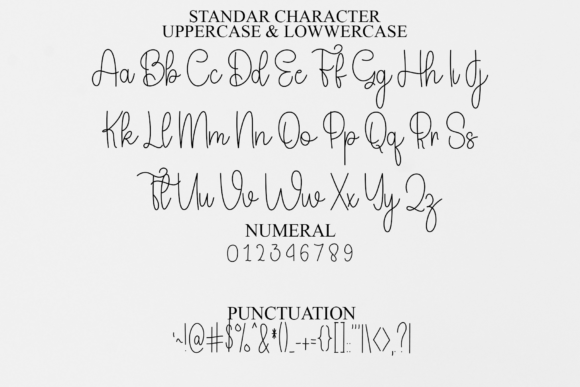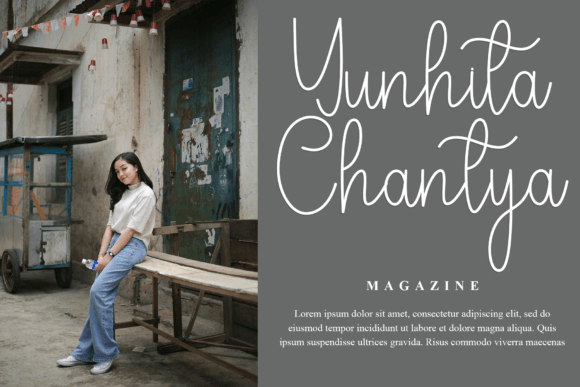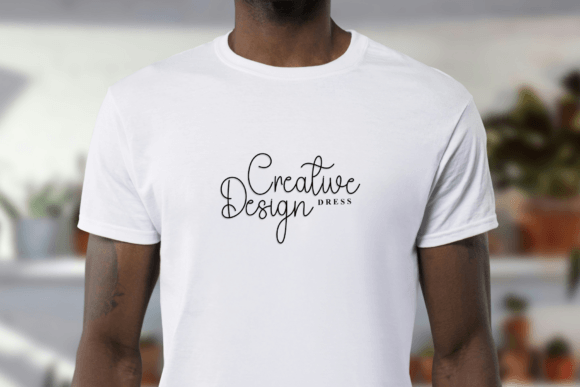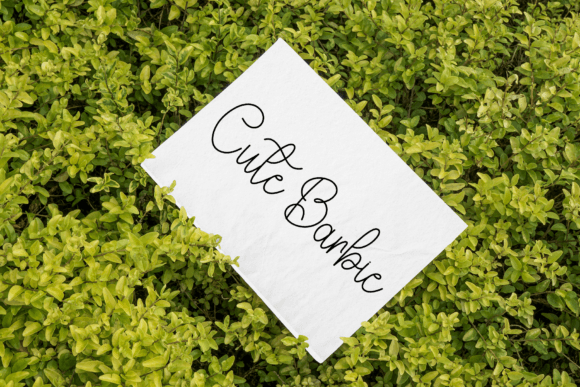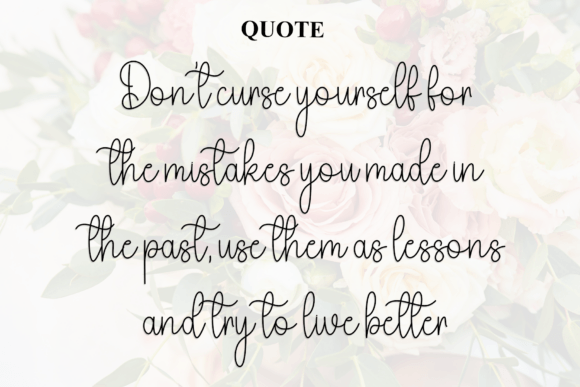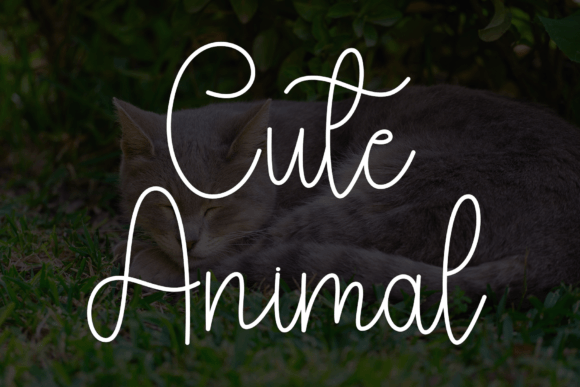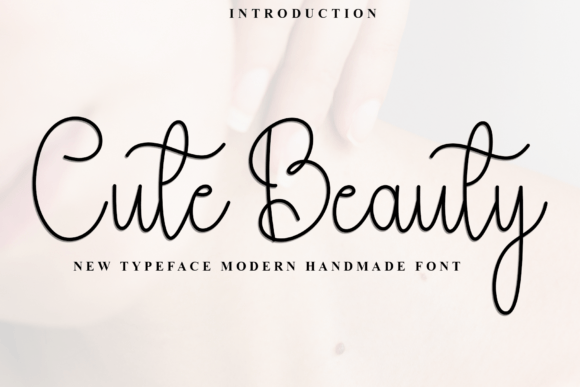
Cute Beauty Font: Elevate Your Designs with a Soft and Unique Touch
In the world of design, typography plays a crucial role in capturing the essence of a brand or creative project. A well-chosen font can make all the difference, conveying the right tone and aesthetic to engage your audience. If you’re on the hunt for a beautiful and eye-catching font that adds a touch of softness and uniqueness to your designs, look no further than Cute Beauty Font.
What Makes Cute Beauty Font Special?
Cute Beauty Font is a meticulously designed font that boasts distinctive strokes, giving it a special character that sets it apart from other fonts. Its soft and unique touch makes it perfect for a wide range of design projects, from crafts and creative works to branding and advertising materials. The font’s versatility is further enhanced by its various characters, ensuring that your designs will stand out and leave a lasting impression on your audience.
Key Features of Cute Beauty Font
• Soft and Unique Touch: Cute Beauty Font is designed with a soft, unique touch that adds a touch of elegance and sophistication to your designs.
• Distinctive Strokes: The font’s distinctive strokes give it a special character, making it perfect for designs that require a personal touch.
• Versatile: With various characters, Cute Beauty Font is ideal for a wide range of design projects, from crafts and creative works to branding and advertising materials.
Cute Beauty Font is a dream come true for designers and crafters looking to add a personal touch to their work. Whether you’re creating branding materials, social media graphics, or craft projects, this font is sure to elevate your designs and make them more engaging. Its natural font style makes it perfect for designs that require a subtle yet impactful touch.
Applications of Cute Beauty Font
Cute Beauty Font is a versatile font that can be used in a wide range of applications, including:
• Branding: Use Cute Beauty Font to create stunning branding materials, such as logos, business cards, and letterheads.
• Social Media Graphics: Add a personal touch to your social media graphics, including Facebook posts, Instagram stories, and Twitter headers.
• Crafts: Use Cute Beauty Font to create beautiful craft projects, such as handmade cards, scrapbooking, and DIY decorations.
• Advertising: Incorporate Cute Beauty Font into your advertising materials, including flyers, brochures, and posters.
Why Choose Cute Beauty Font?
With so many fonts available, why choose Cute Beauty Font? Here are just a few reasons:
• Unique: Cute Beauty Font is a one-of-a-kind font that will set your designs apart from the rest.
• Elegant: The font’s soft and unique touch adds a touch of elegance and sophistication to your designs.
• Versatile: Cute Beauty Font can be used in a wide range of applications, making it a valuable addition to your design toolkit.
In conclusion, Cute Beauty Font is a beautiful and eye-catching font that is sure to elevate your designs and make them more engaging. Its soft and unique touch, distinctive strokes, and versatility make it perfect for designers and crafters looking to add a personal touch to their work. With its wide range of applications and compatibility with various platforms, Cute Beauty Font is an excellent choice for anyone looking to take their designs to the next level.